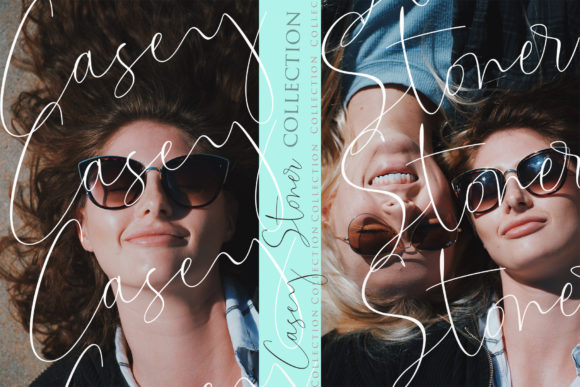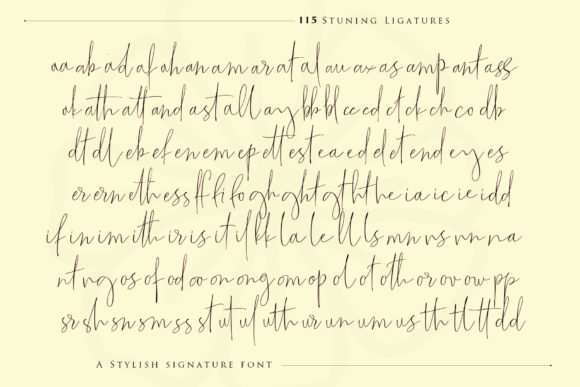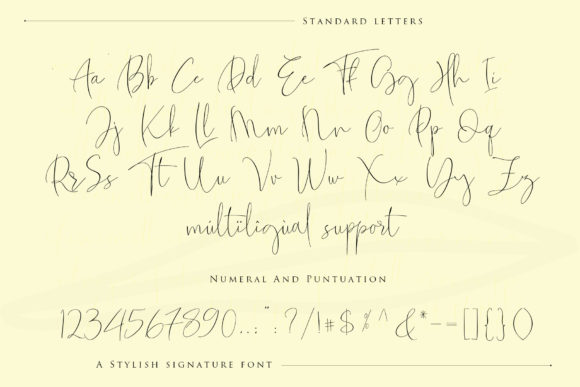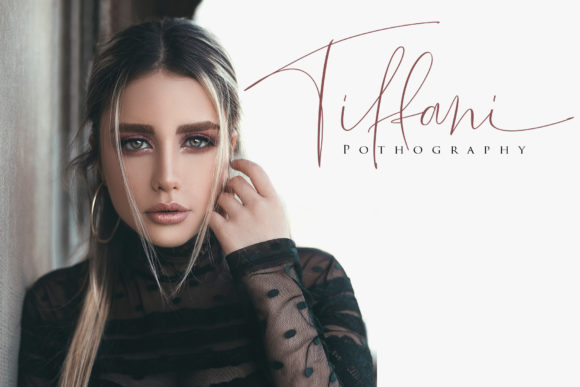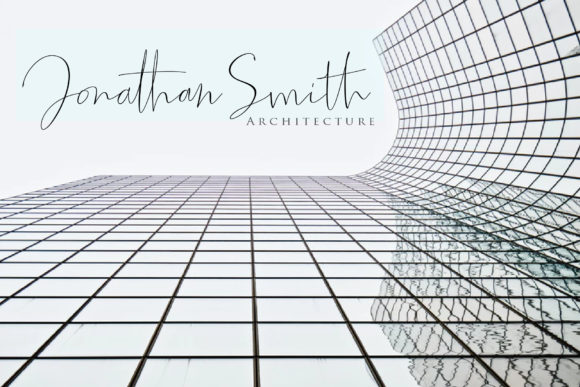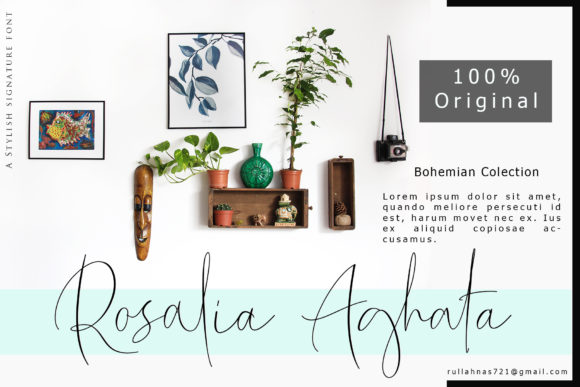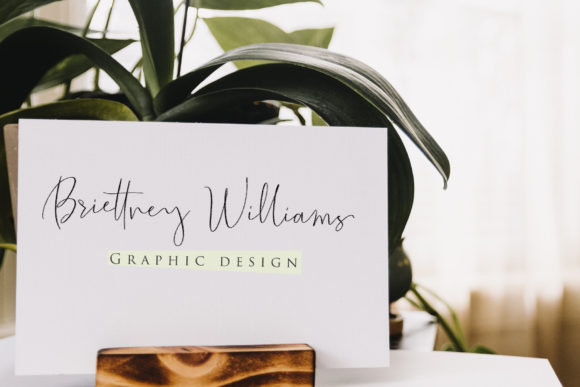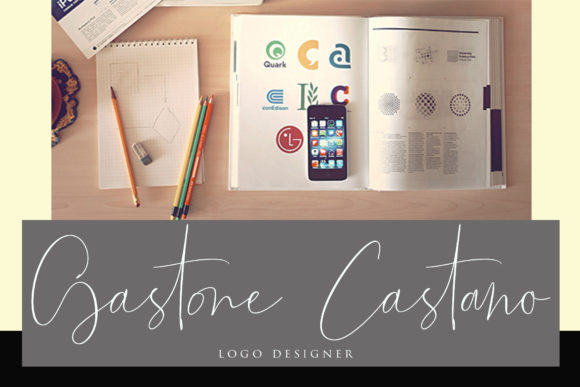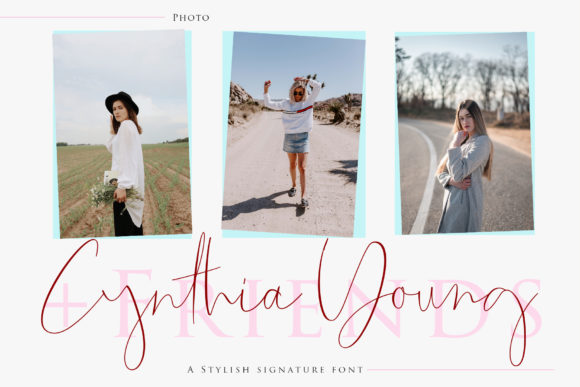
The Fantastic Font
About The Fantastic Font
The Fantastic is a beautiful and charming handwritten with a modern and light feel. Fall in love with its timeless appeal.